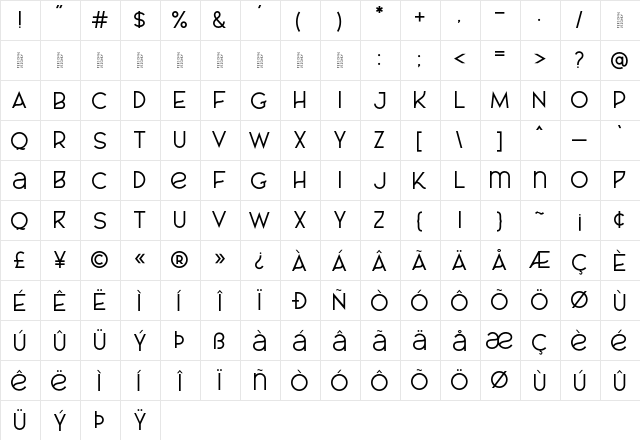
AL_CHEVROLA_PersonalUseOnly Regular Font Preview
AL_CHEVROLA_PersonalUseOnly Regular
Design Context for AL_CHEVROLA_PersonalUseOnly Typeface
AL_CHEVROLA_PersonalUseOnly takes a measured approach to typography — its balanced proportions and neutral character make it a reliable workhorse for both digital and print work.